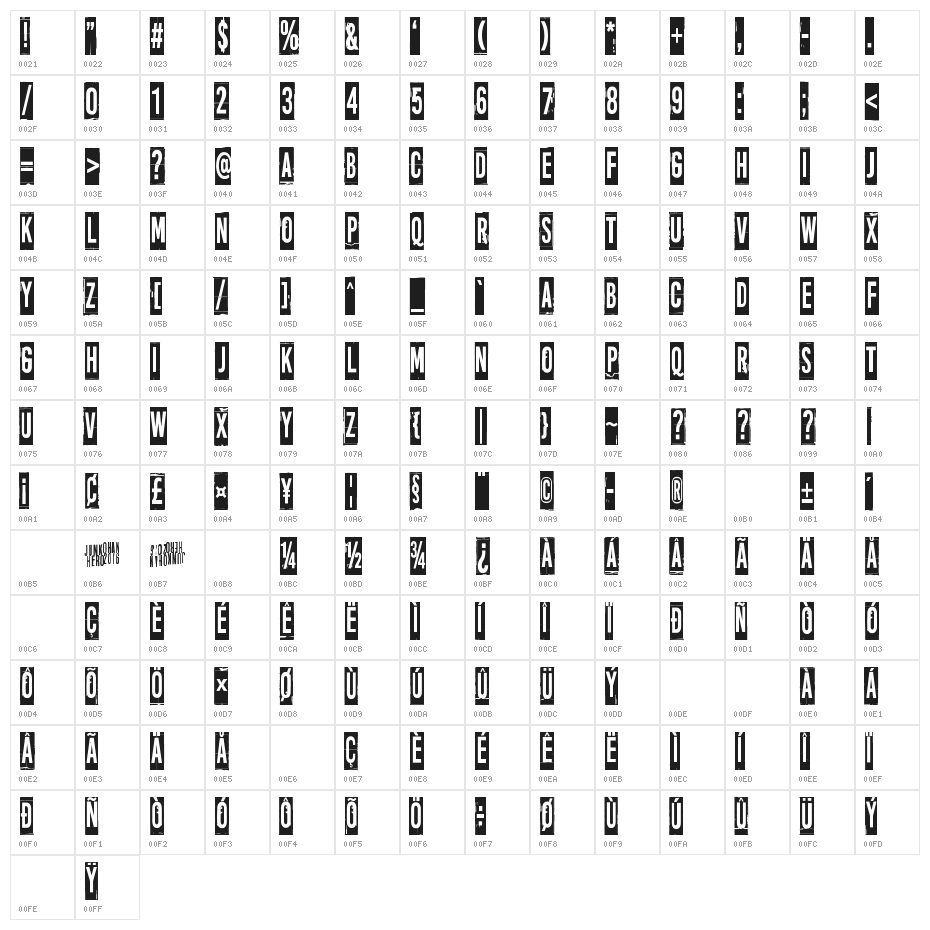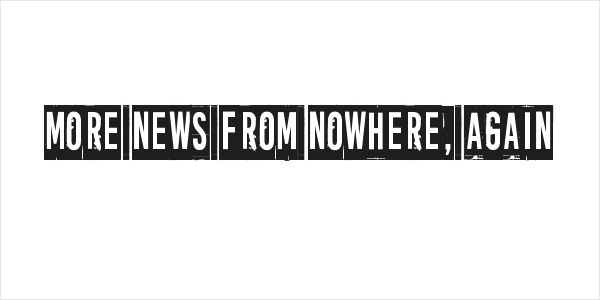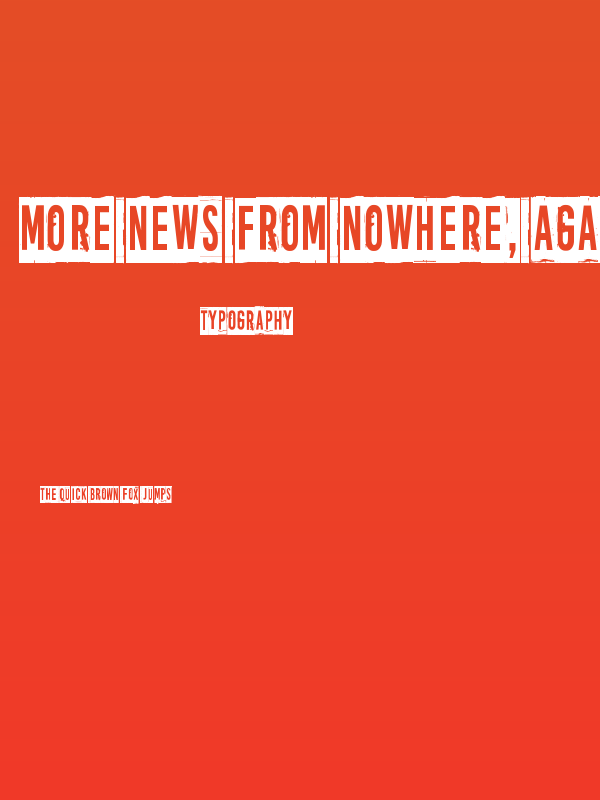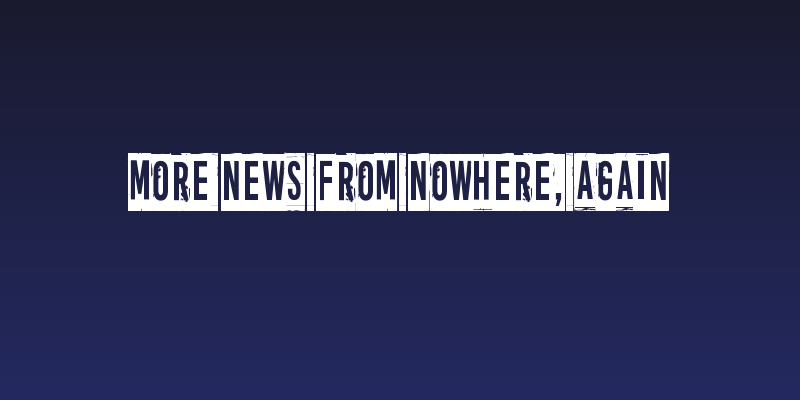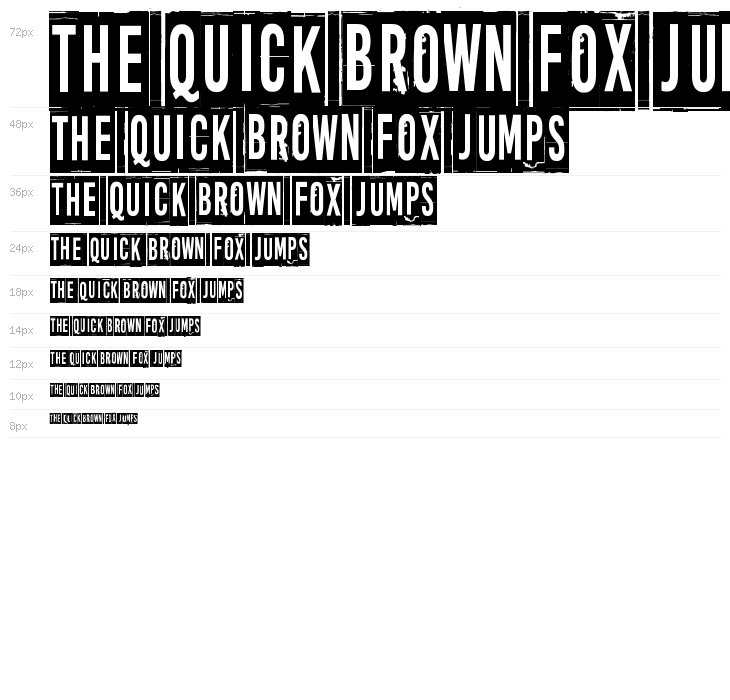
More news from nowhere, again Font
More news from nowhere, again Description
This font features a bold, distressed style with a strong, impactful presence. The characters are uppercase and have a stencil-like appearance, with intentional imperfections and rough edges that give it a grunge or industrial feel. The numbers and special characters follow the same aesthetic, maintaining consistency throughout the set. The design is highly legible despite its distressed look, making it suitable for attention-grabbing headlines or artistic projects. Its boldness and unique texture make it stand out, adding a rugged and edgy vibe to any design.
| Overall Style | Grunge, Industrial |
| Proposed Projects | Ideal for posters, album covers, street art, and branding that requires a bold, edgy look. |